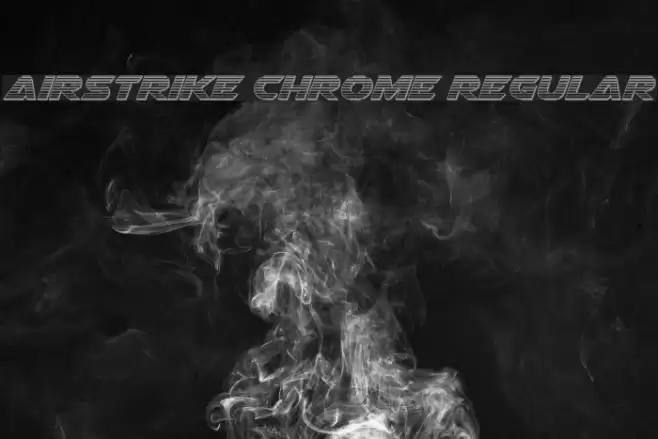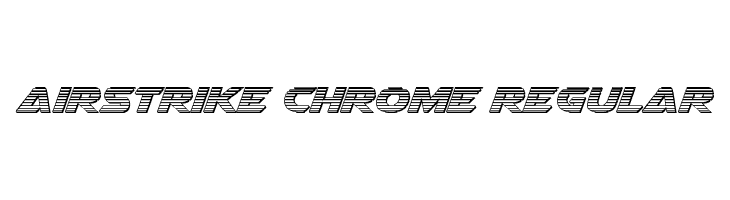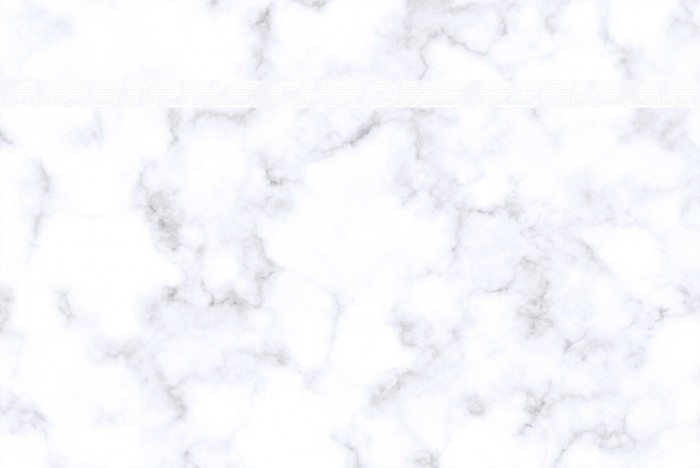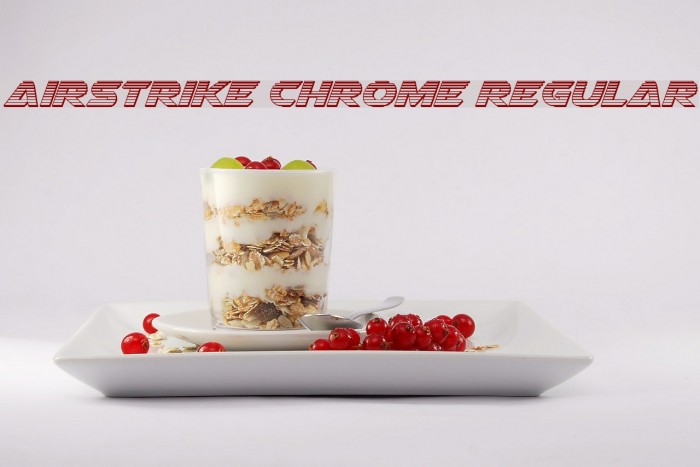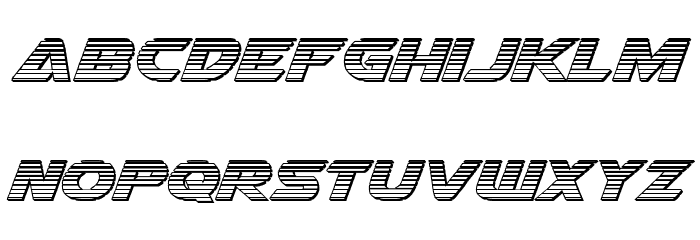
Airstrike Chrome Regular Font
Airstrike Chrome Regular Description
This font features a bold, futuristic design with a distinct chrome-like appearance. The characters are constructed with multiple parallel lines, creating a sense of movement and depth. The uppercase letters are uniform in height, while the lowercase letters maintain a consistent style. The numbers and special characters follow the same design principles, ensuring a cohesive look across all elements. This font's unique style makes it stand out, offering a modern and edgy aesthetic that is both eye-catching and versatile.
A bold, futuristic font with a chrome-like, multi-line design from Uncategorized fonts.